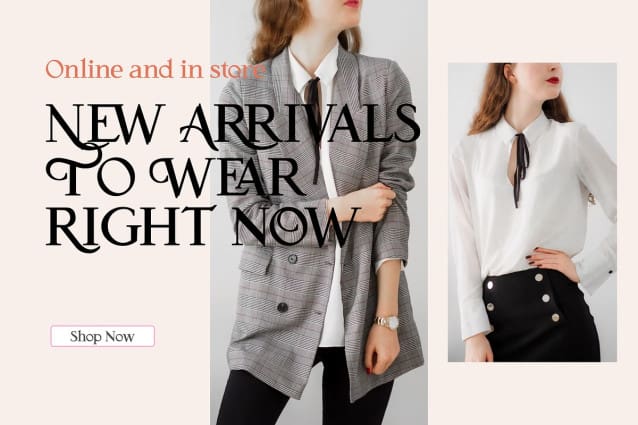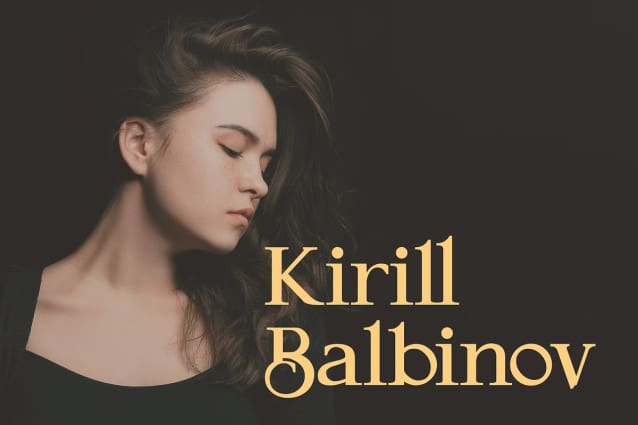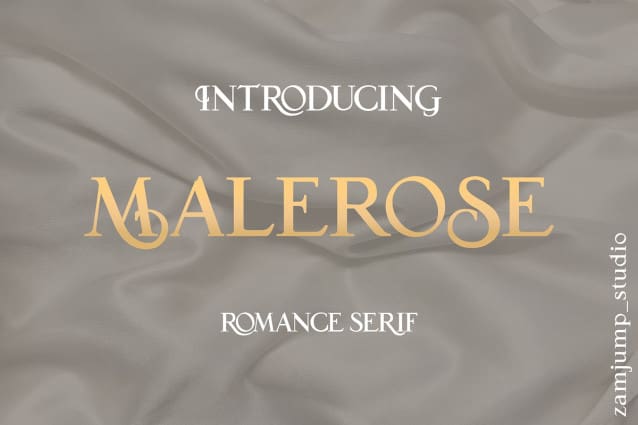
Malerose Font
Malerose Font is a classy and bold upper and lower case typeface that looks amazing in both large and small settings. Best used as a display for headings and logos, Malerose’s clean, bold lines add an extra touch of class to any project.